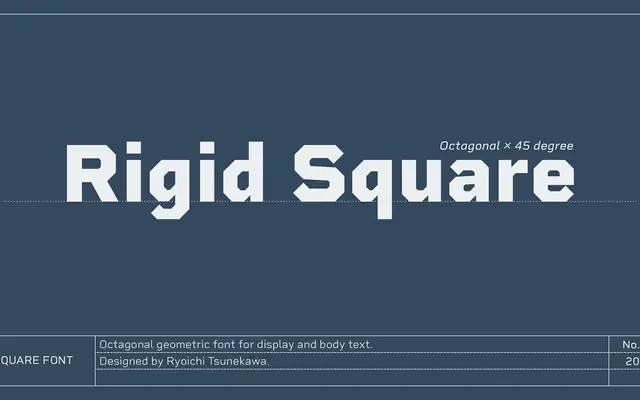
Rigid Square
A geometric sans built on octagonal forms and 45-degree cuts, adapted for extended reading through neo-humanist letterforms on key characters.
Strict geometry defines the construction, with octagonal shapes and precise 45-degree angles throughout. Dharma Type have tempered this rigidity with clearly distinguishable forms for capital I and lowercase l, and neo-humanist shaping on b, d, g, p and q, making it serviceable at body text sizes in technical and mechanical contexts. Seven weights with matching italics and broad Latin coverage make it functional across both documentation and display work.
Defined by octagonal forms and strict 45-degree cuts, this is a geometric sans with neo-humanist modifications to key letterforms for improved legibility at text sizes.